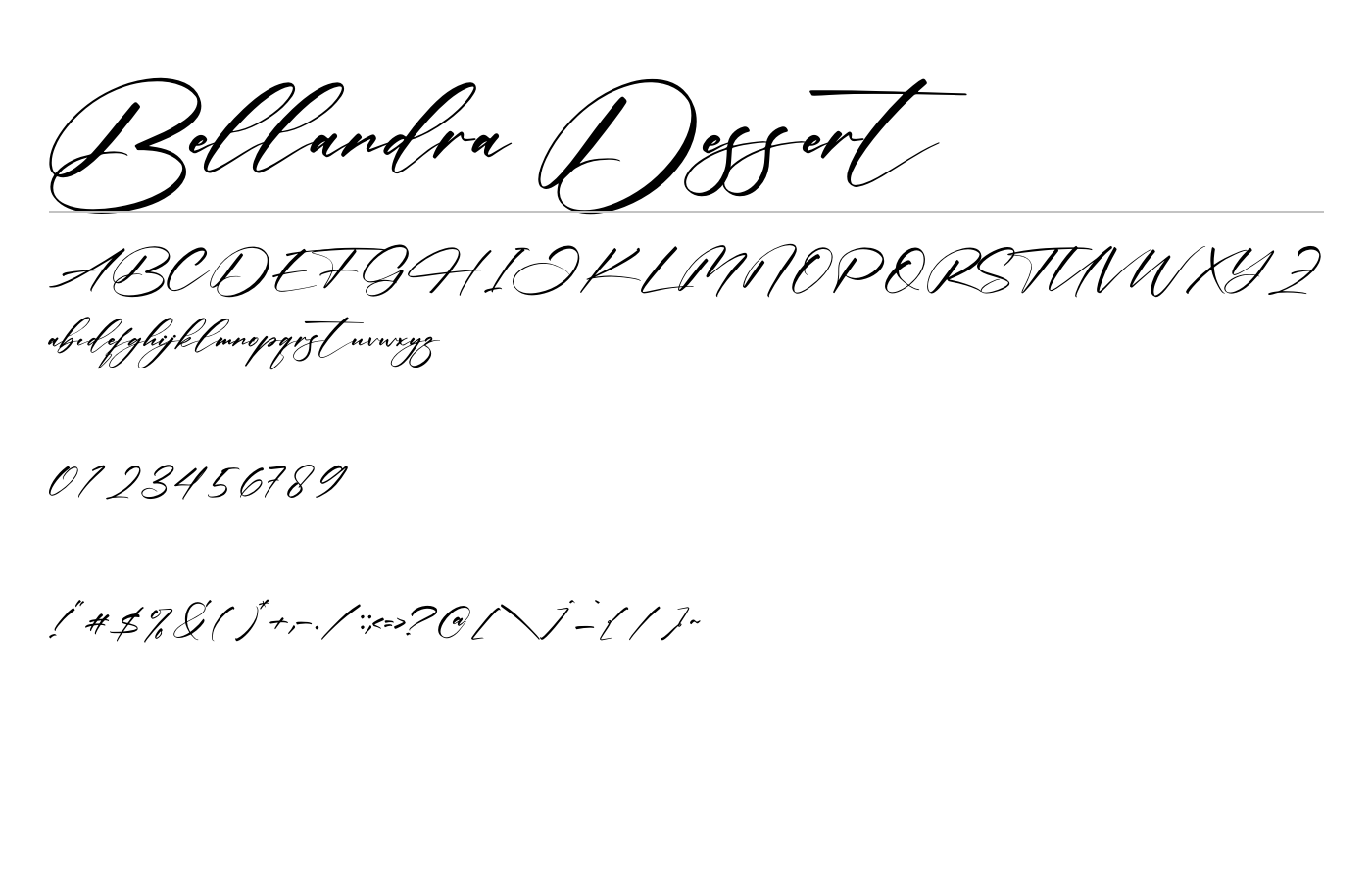
Bellandra Dessert is an elegant, flowing script font characterized by its delicate, high-contrast strokes and graceful, calligraphic style. Its slender, slightly condensed letterforms with fine, curving lines create a sophisticated and luxurious feel, ideal for wedding invitations, branding, and upscale packaging. This font’s refined personality makes it perfect for designs that seek to convey elegance and charm with a modern, handwritten touch.
Bellandra Dessert Font
About Bellandra Dessert Font
| Font family | Bellandra Dessert Font |